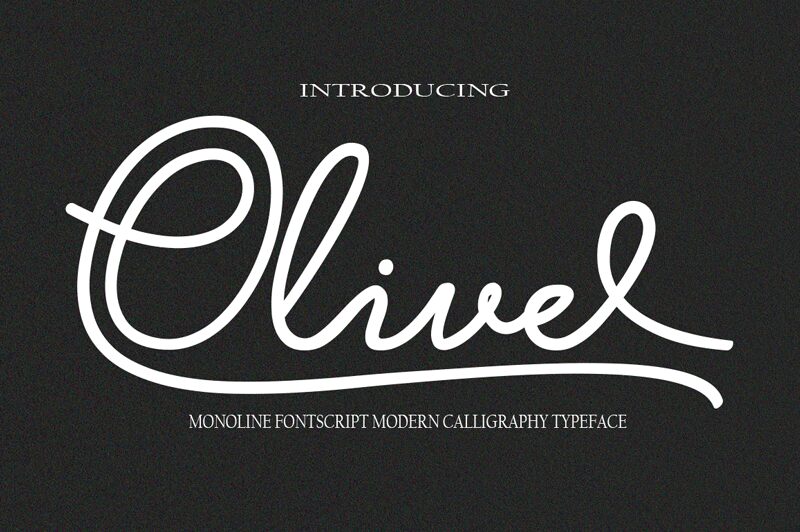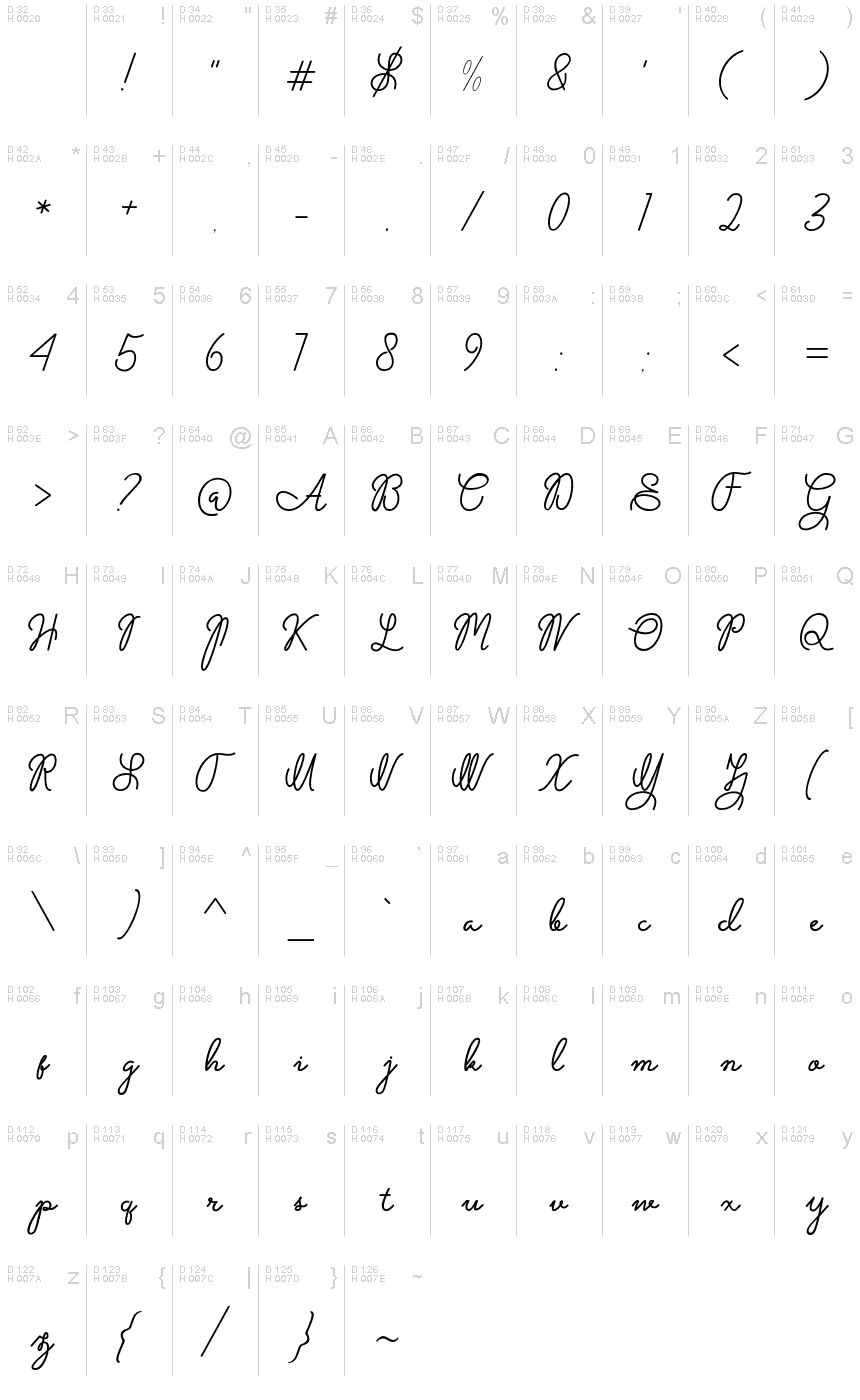
Olive free
Olive mono line is the font style handmade dancing and then live trace to have unique forms of calligraphy, the writing style is very natural.